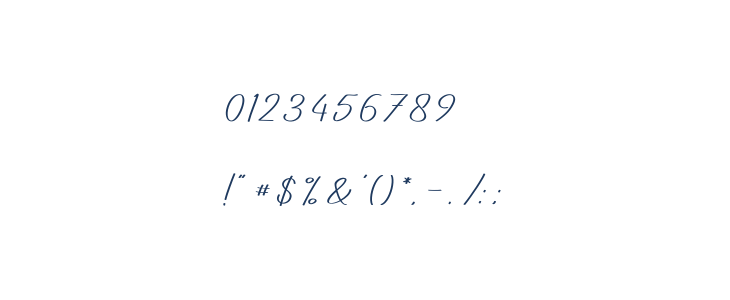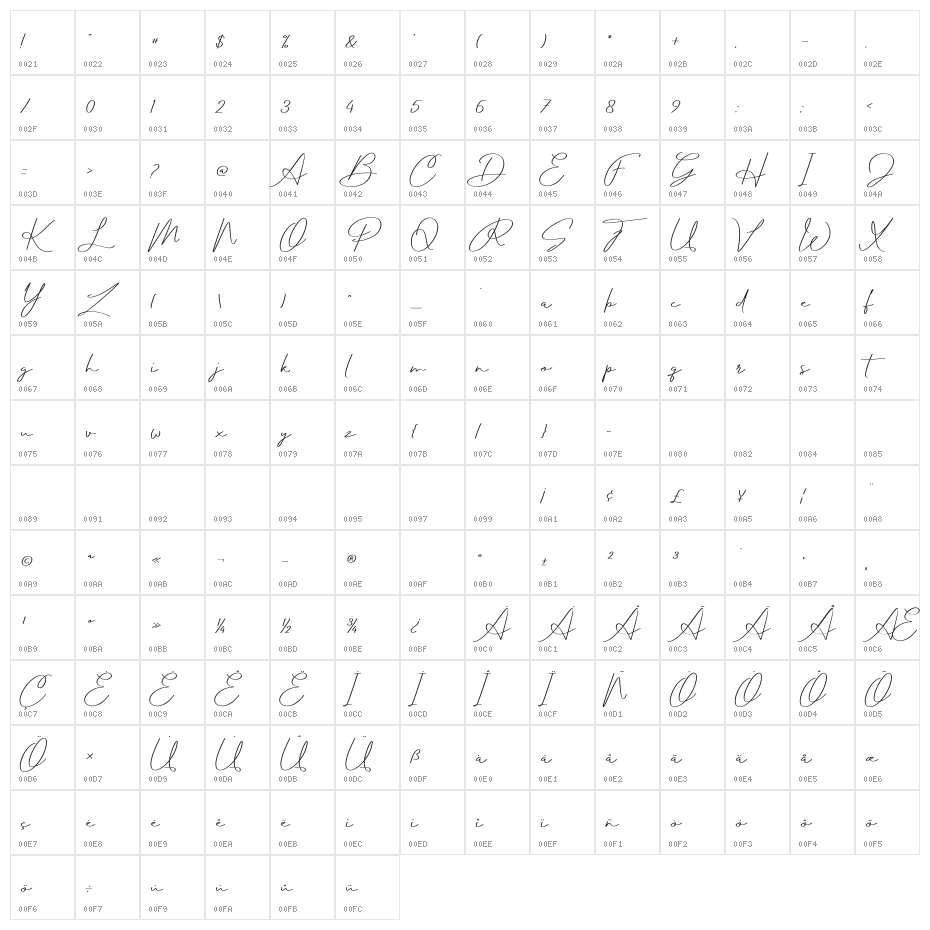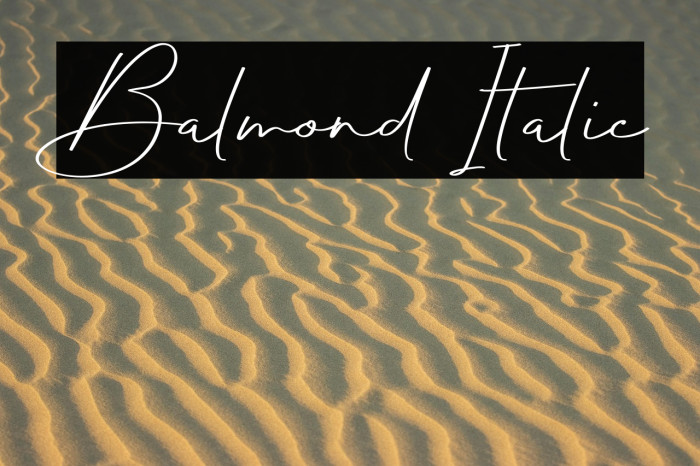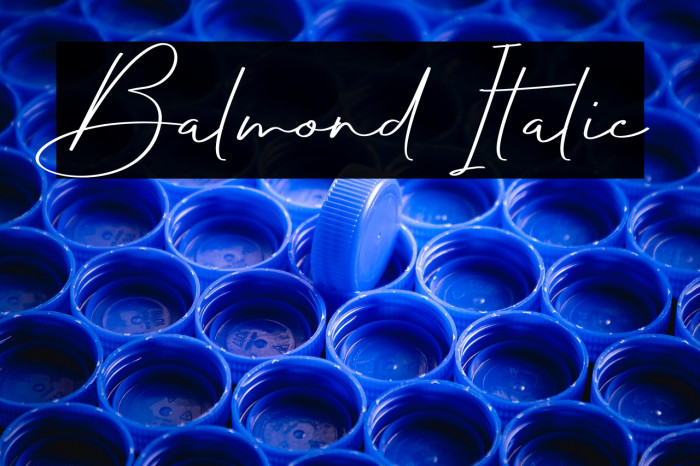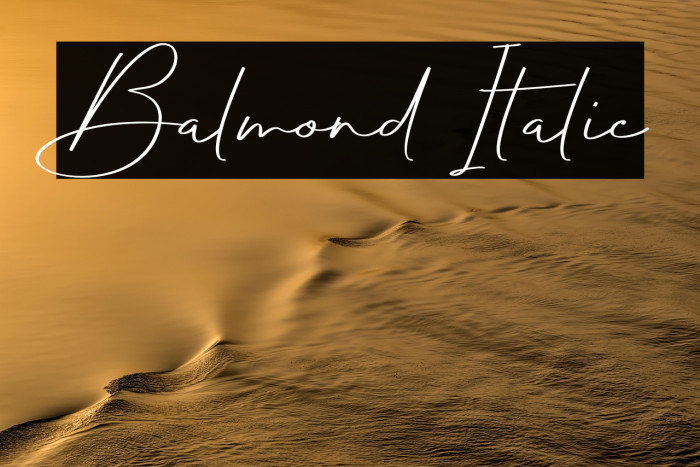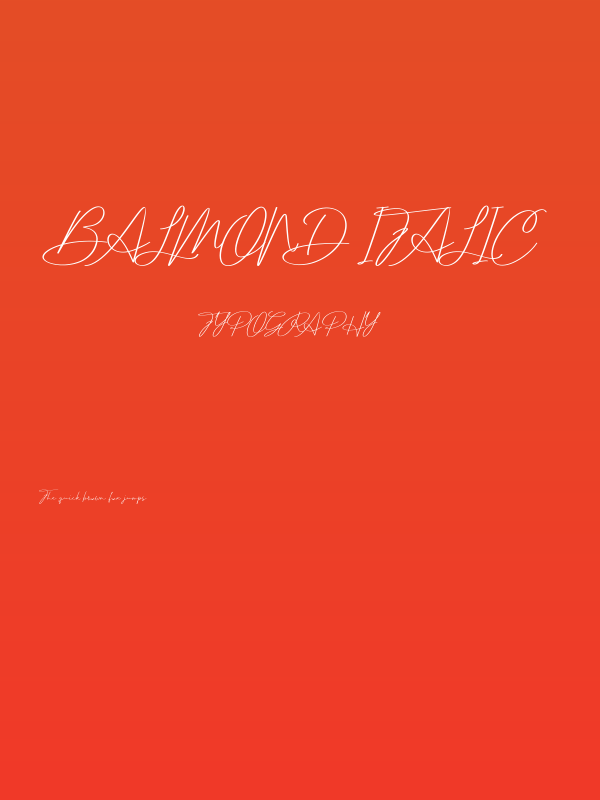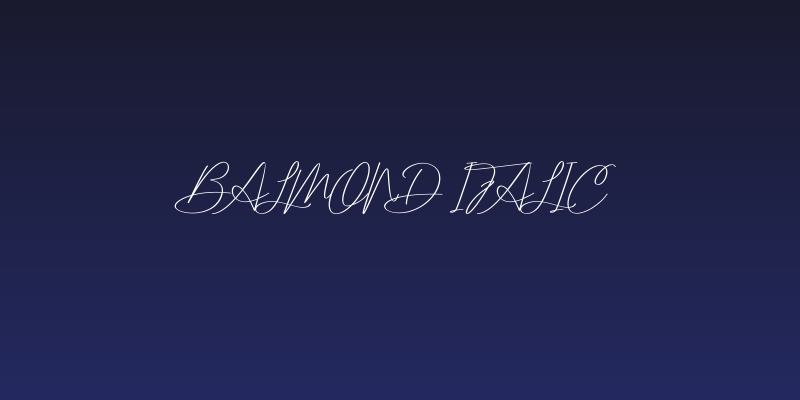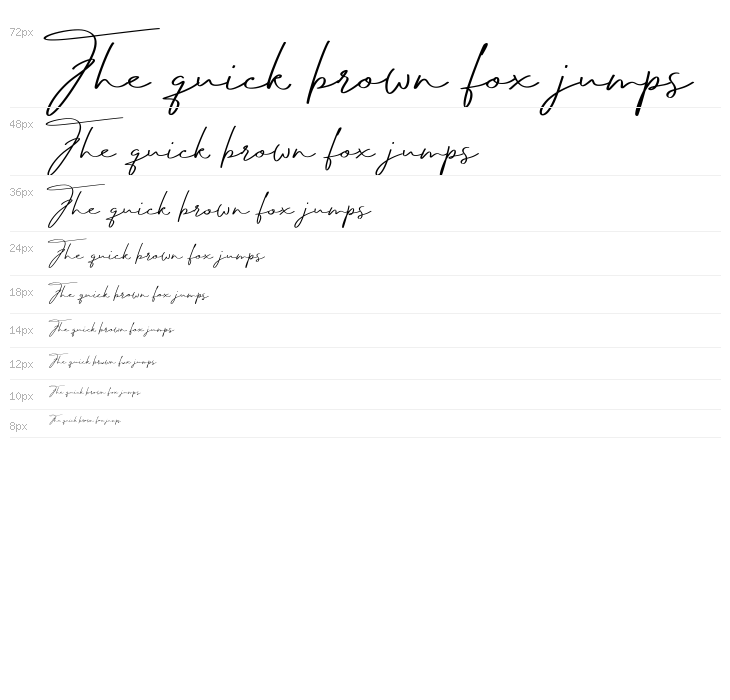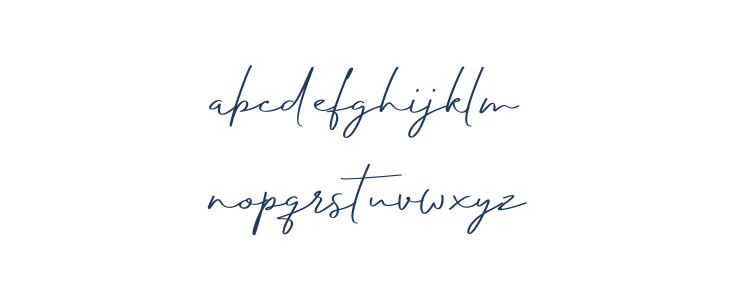
Balmond Italic Font
Balmond Italic Description
This elegant script font features a flowing, cursive style that mimics natural handwriting. The characters are connected with smooth, sweeping lines, giving it a sophisticated and artistic appearance. The uppercase letters are elaborate with decorative loops, while the lowercase letters maintain a more subtle and refined look. The numerals and special characters are consistent with the overall style, ensuring a cohesive design. This font is perfect for projects that require a personal touch or a sense of elegance and creativity.
| Overall Style | Elegant, Artistic |